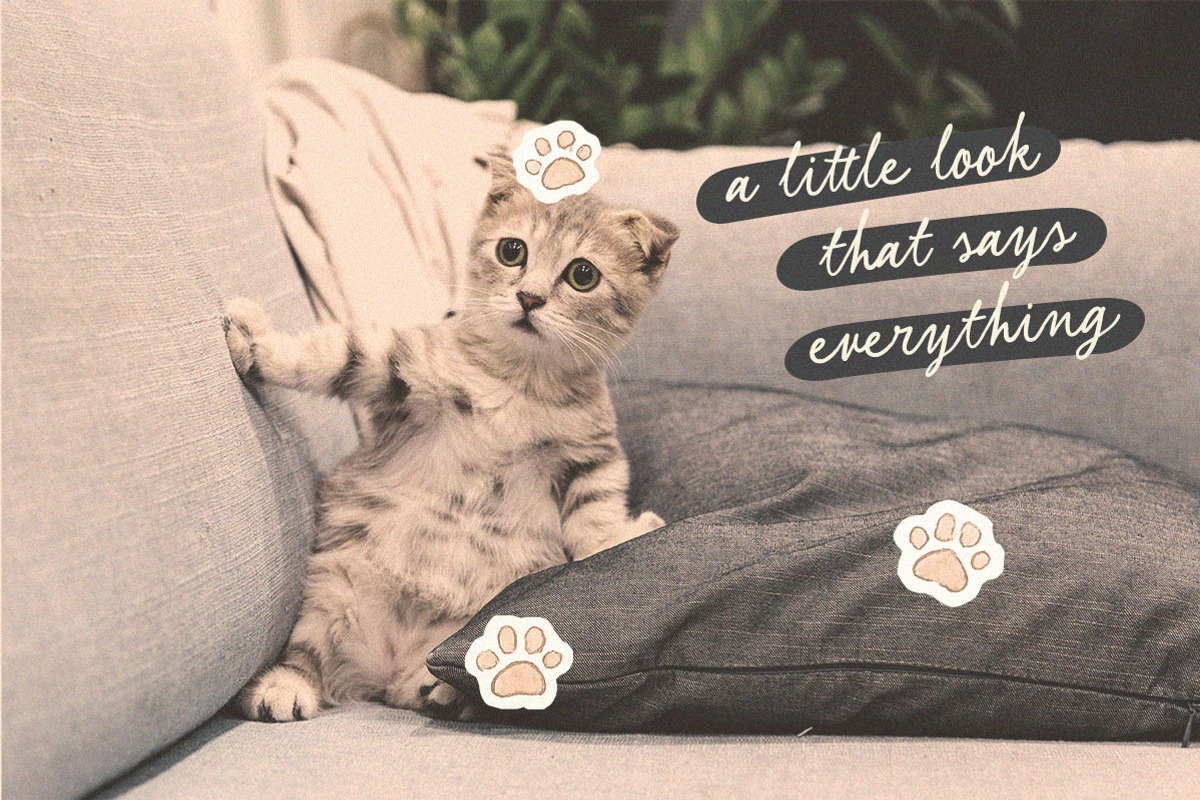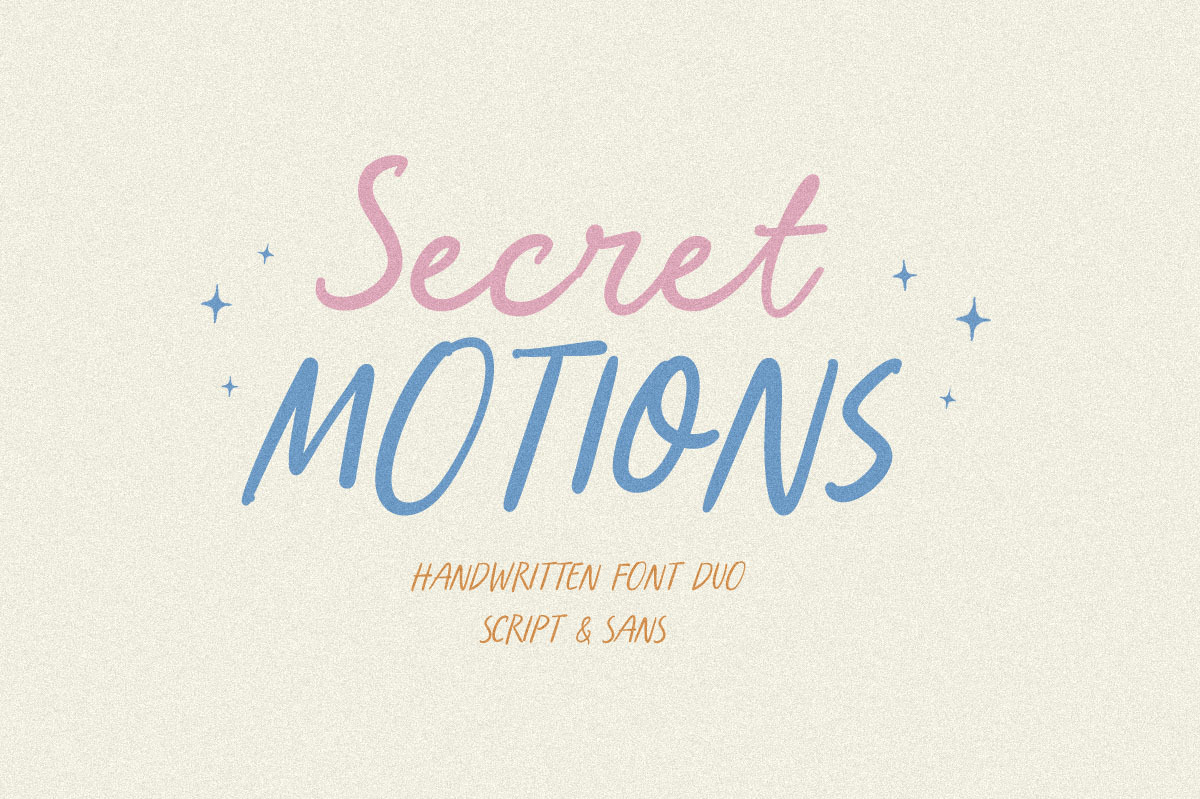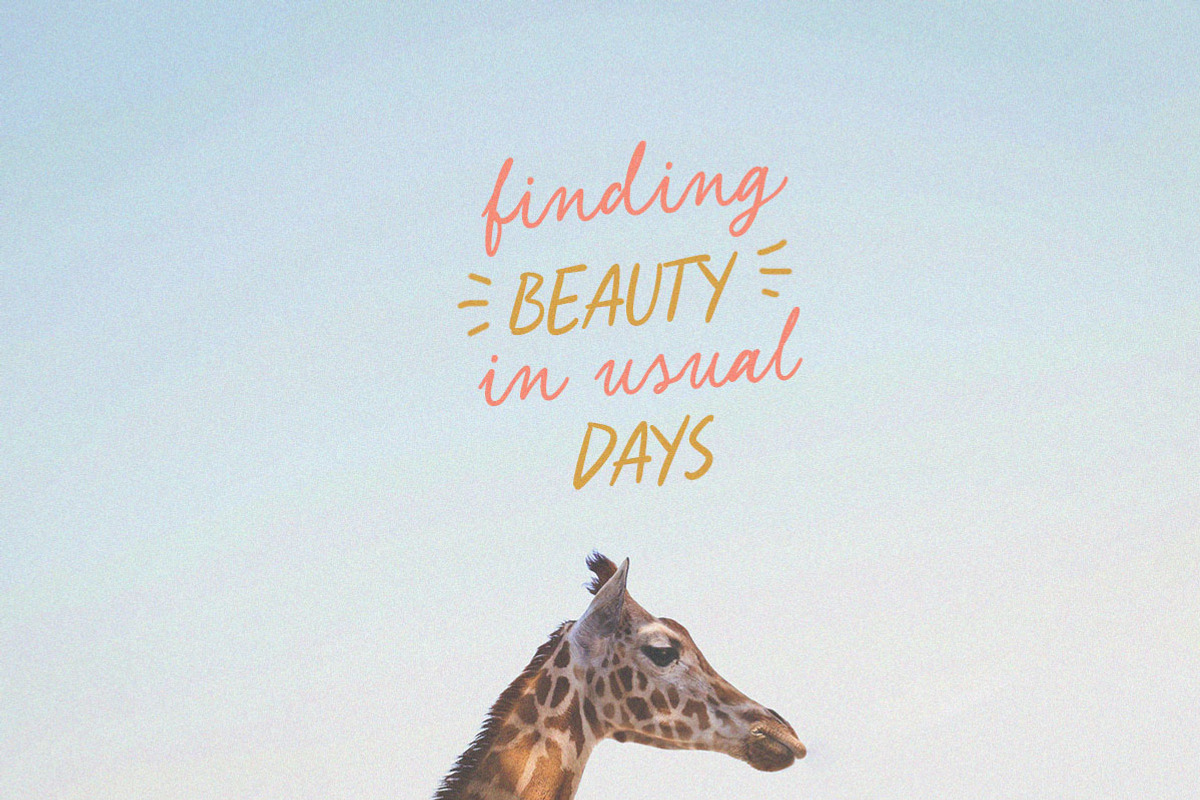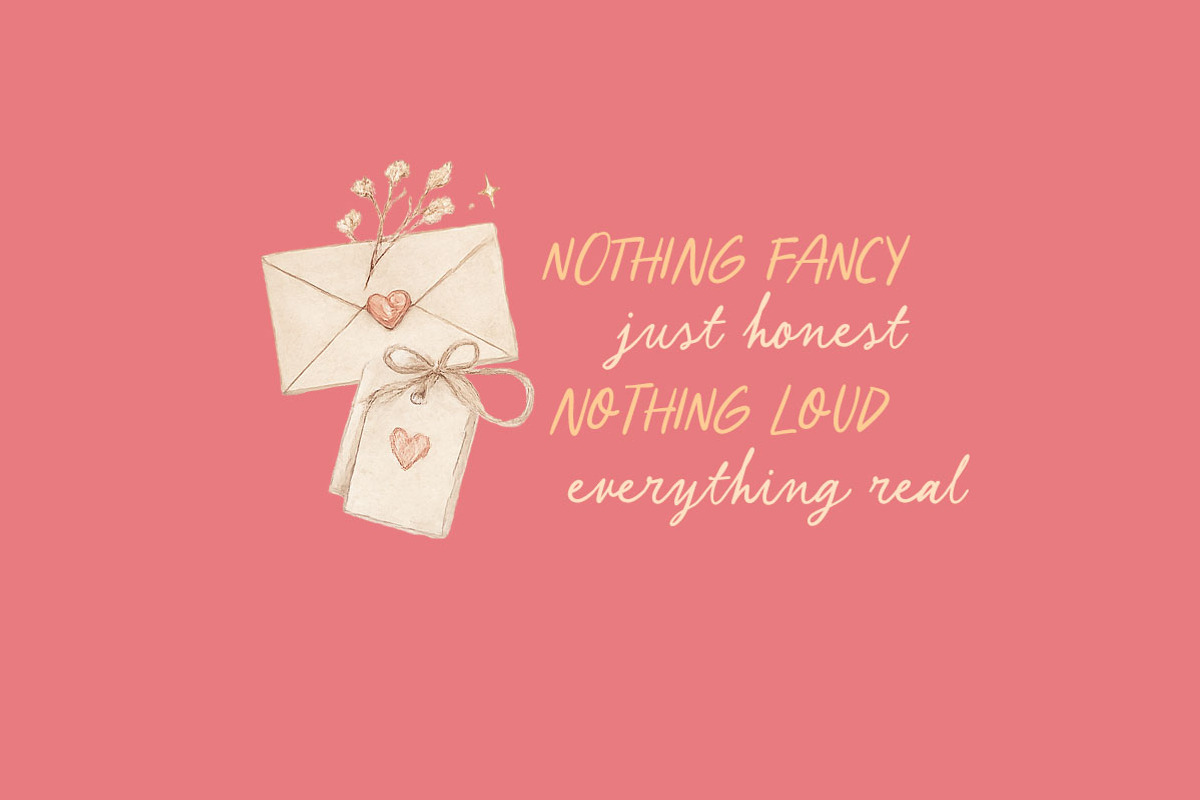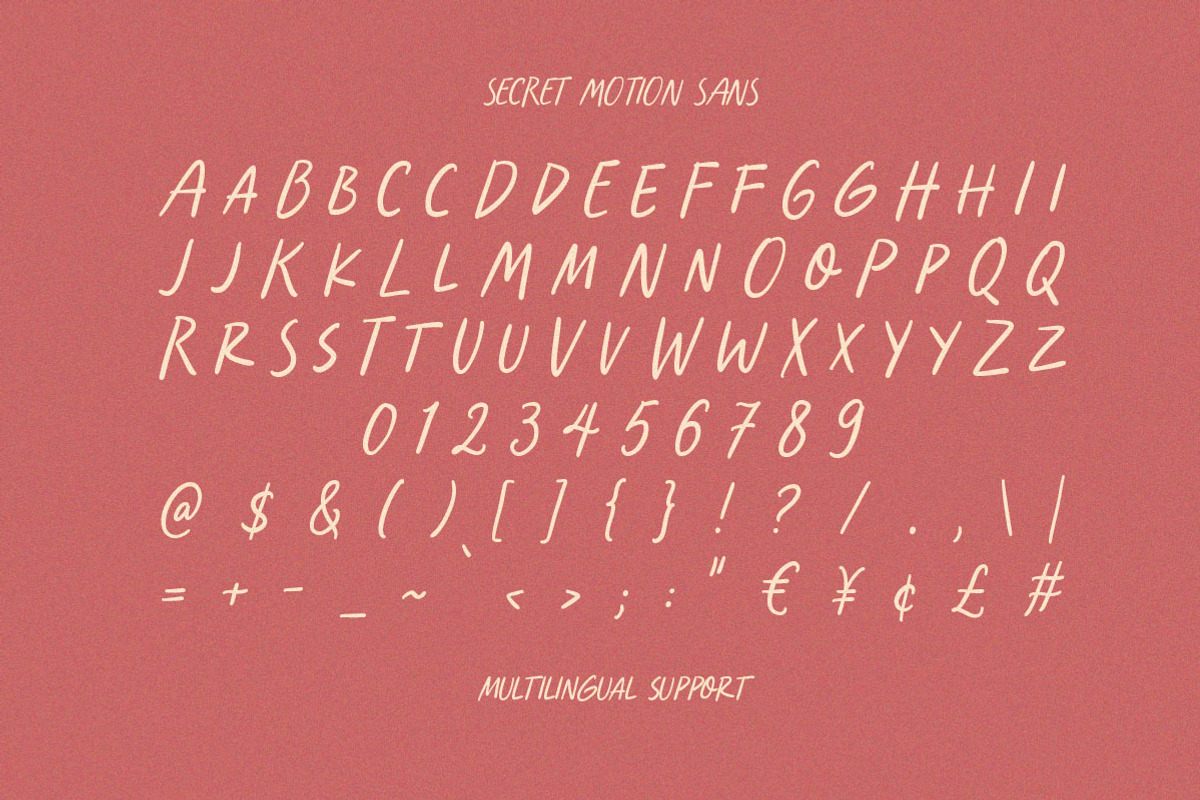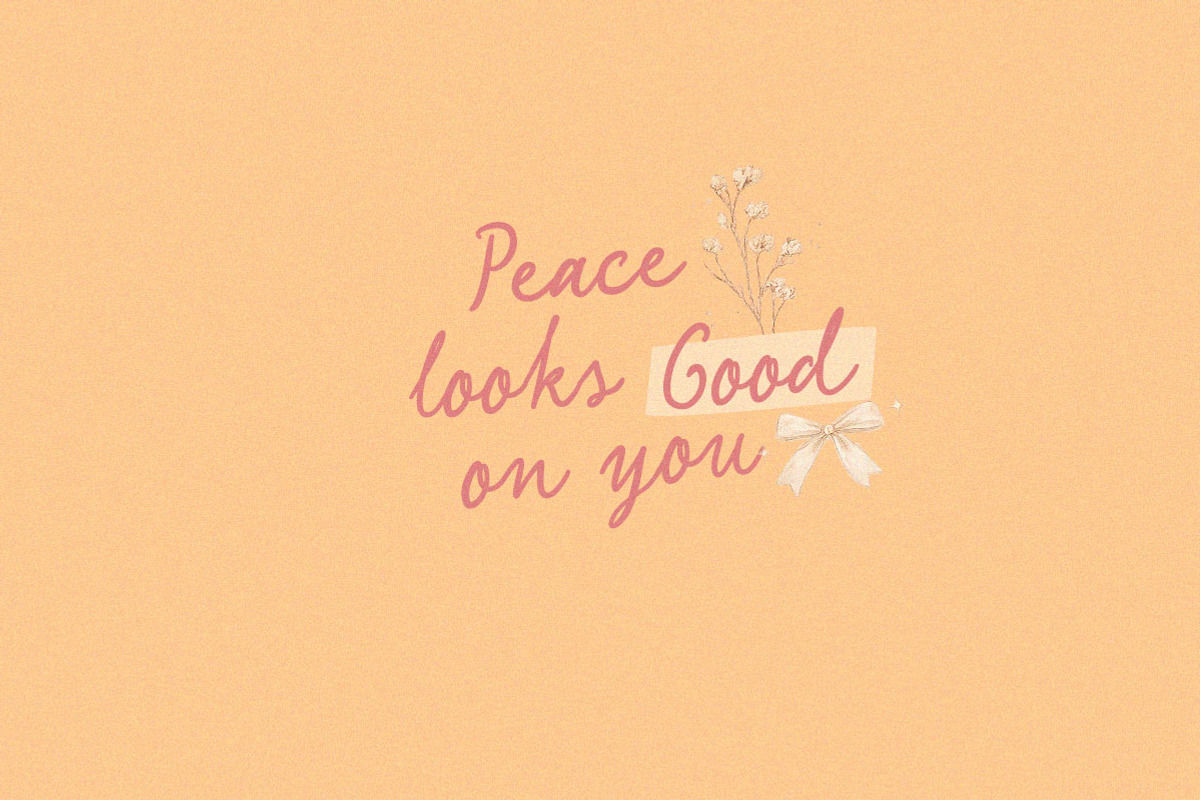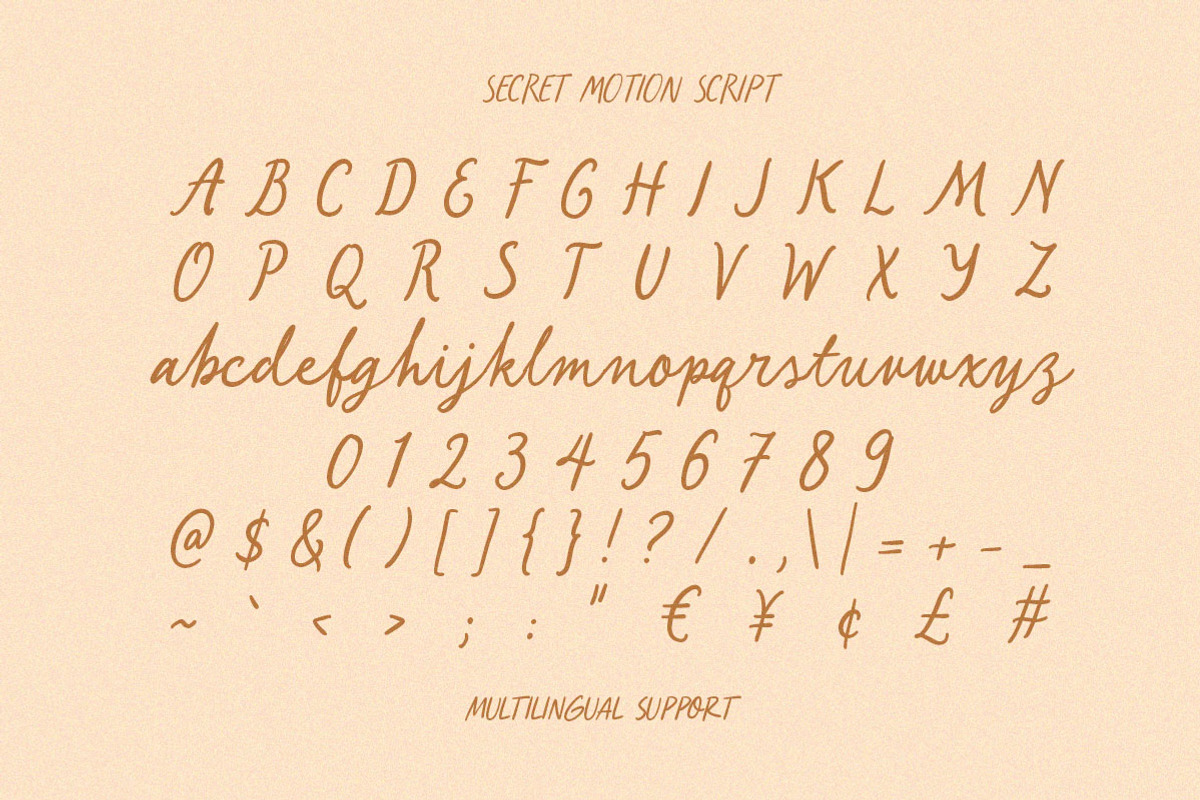
Secret Motion Handwritten Font Duo
Secret motions mixes a smooth handwritten script with a simple friendly sans that feels light and cheerful. The script adds personality and movement, while the sans keeps everything clear and balanced. Playful, sweet, and slightly retro, it’s perfect for quotes, posters, and social media visuals.